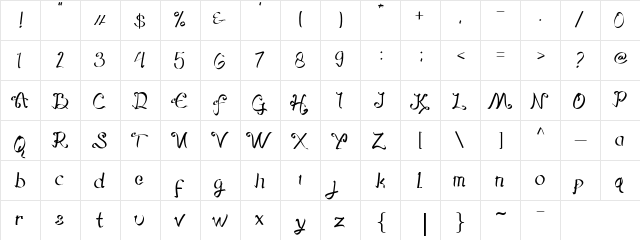
Hegorustow Regular
| Designer | Rometheme |
Design Context for Hegorustow Typeface
Hegorustow is a composed and adaptable typeface that performs quietly and consistently across a wide range of design contexts.